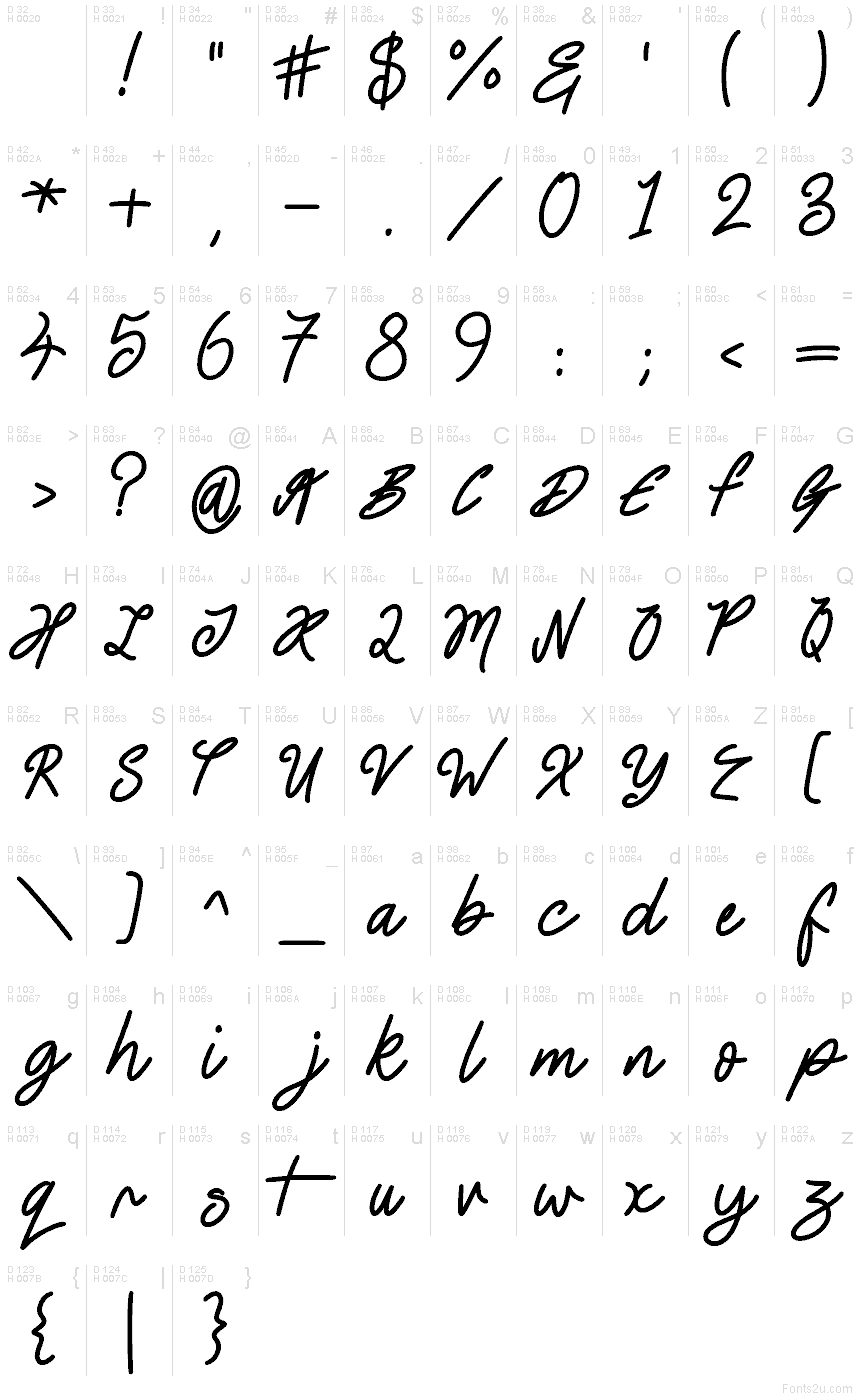
Monopoly Bank
Monopoly Bank font by JSH Creates is a free handwritten font that captures the essence of expressive and fluid style. Its casual elegance combines artistic flair with a natural flow, providing a versatile option for various design needs.
Ideal for wedding invitations, greeting cards, logos, branding projects, product packaging, labels, social media posts, blog headers, posters, and quotes. Monopoly Bank offers a stylish and contemporary feel suitable for both personal and commercial projects.